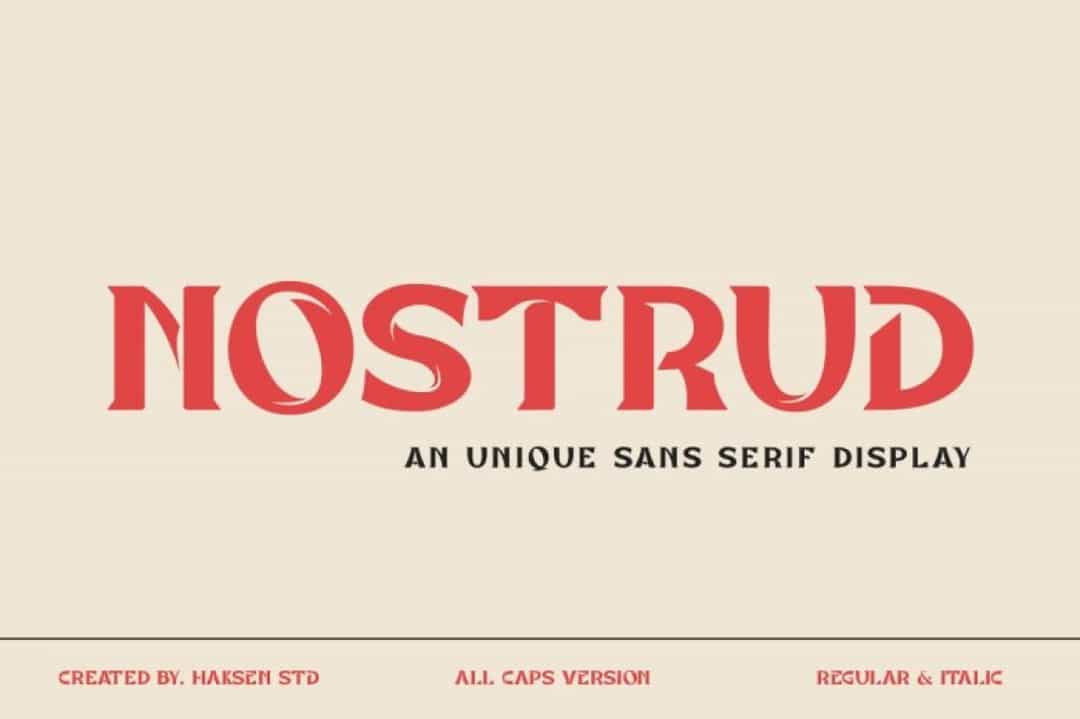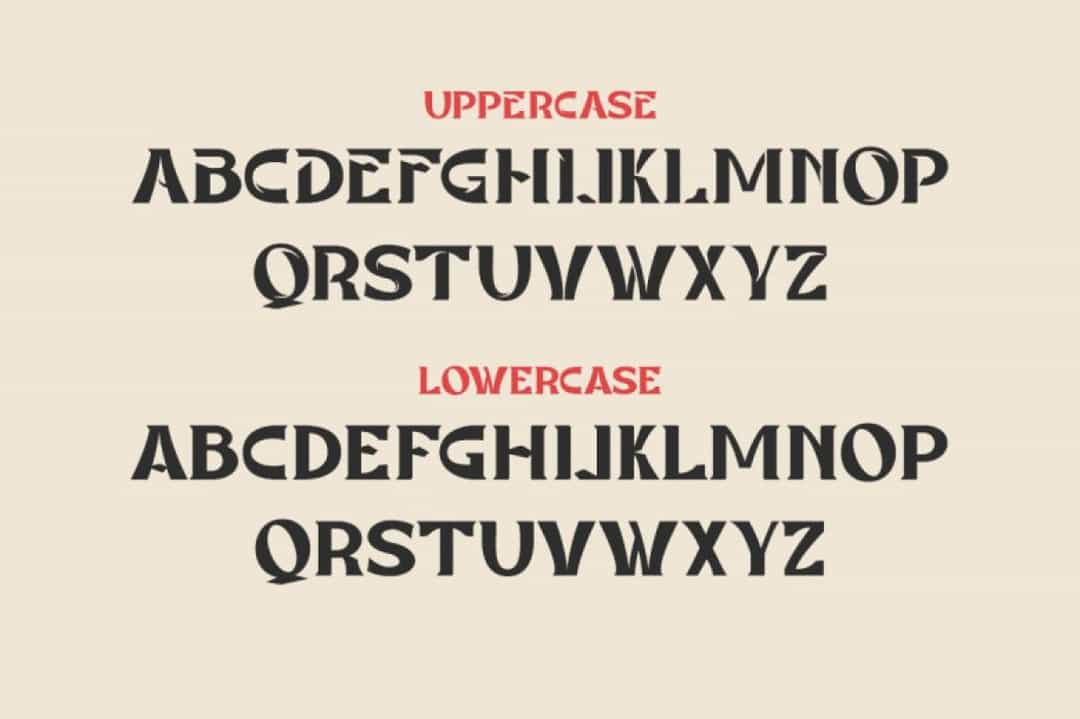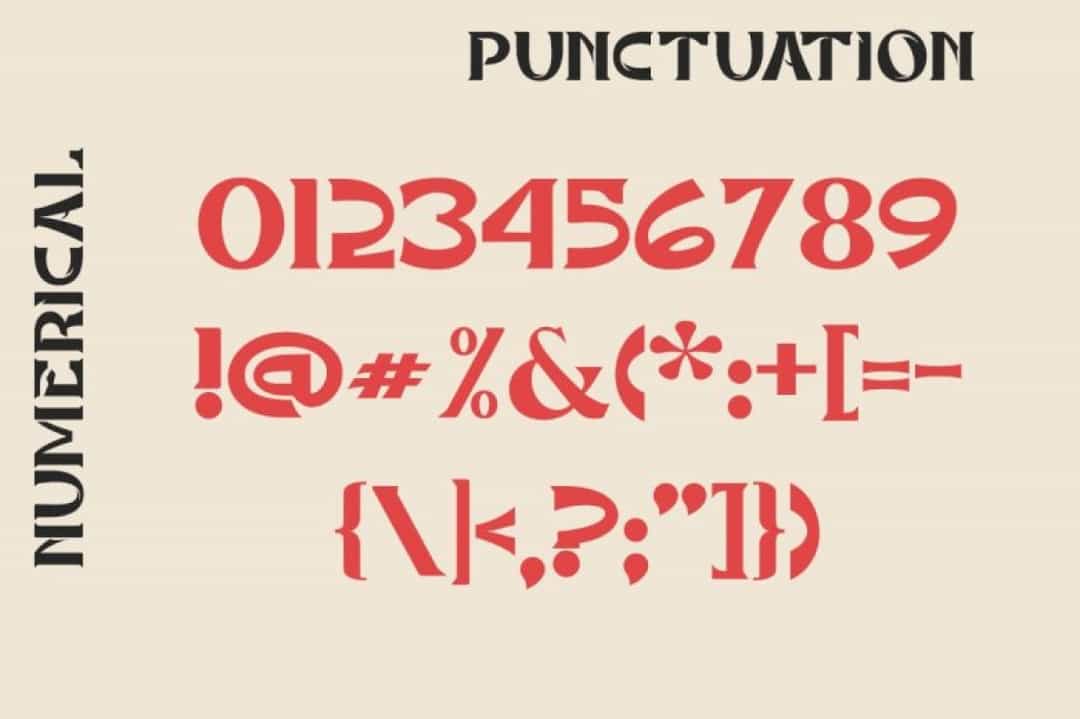
Nostrud is an aggressive serif display font designed by font designer Haksen with an original aesthetic and handcrafted feel. Its wide array of uppercase fonts offers endless design opportunities; making this font suitable for headlines, logos, posters, packaging, T-shirts etc.